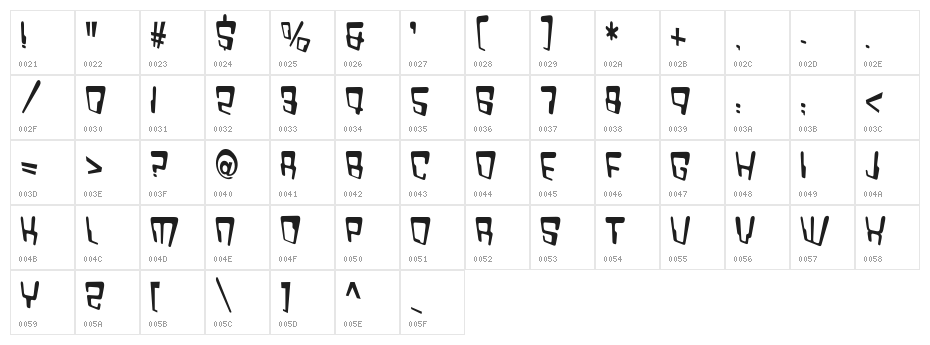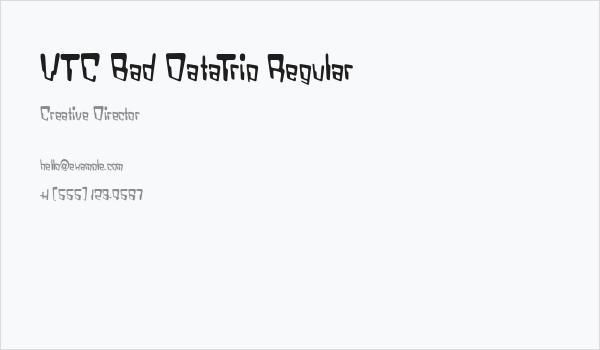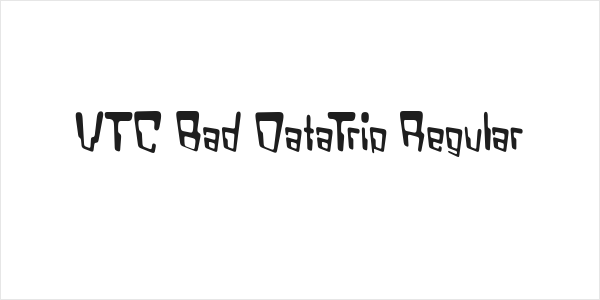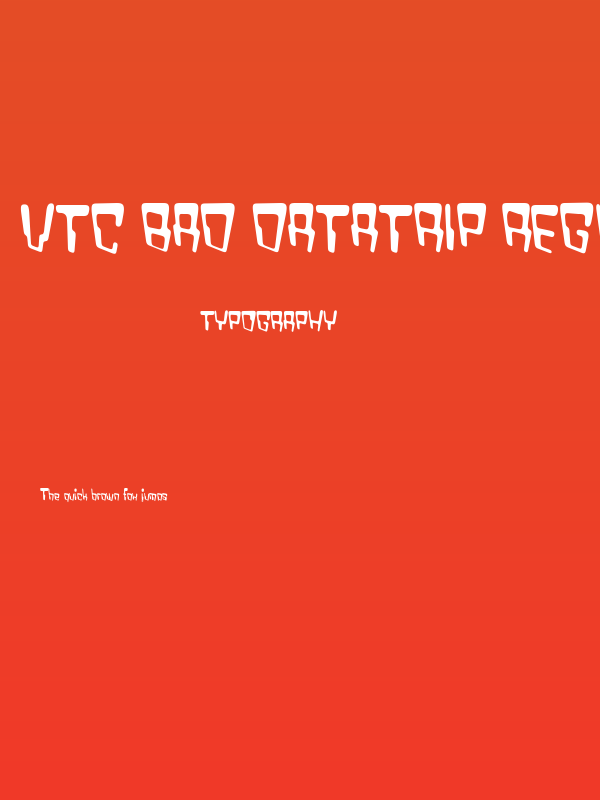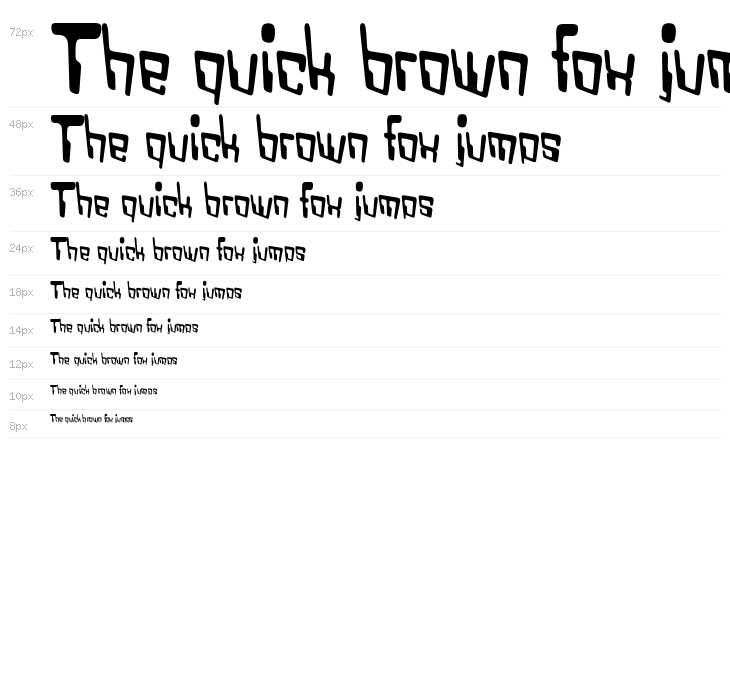
VTC Bad DataTrip Regular Font
VTC Bad DataTrip Regular Description
This font features a bold and edgy design with a futuristic and slightly distorted appearance. The characters have a unique, angular shape with varying stroke thickness, giving it a dynamic and energetic feel. The uppercase and lowercase letters maintain a consistent style, while the numerals and special characters add to its distinctive look. The font's irregular forms and sharp edges make it stand out, ideal for projects that require a modern and unconventional aesthetic.
Proposed ProjectsIdeal for sci-fi themed projects, video game graphics, posters, and edgy branding materials.